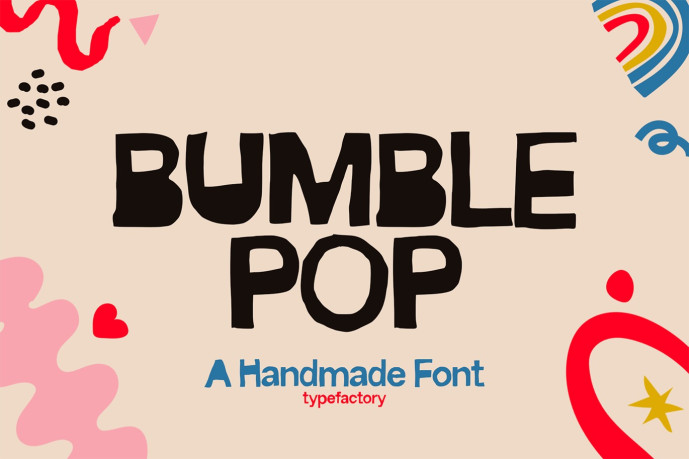
Bumble Pop – Children Book Font
Designer: TypeFactory
Bumble Pop is a playful handmade display font featuring organic curves, bold strokes, and an energetic handcrafted style. Designed to bring warmth and personality to creative projects, its friendly letterforms create a fun and approachable look that works beautifully for children’s books, branding, packaging, posters, social media graphics, logos, invitations, and educational materials. Complete with uppercase, lowercase, numerals, punctuation, multilingual support, and stylistic alternates, Bumble Pop adds a cheerful handcrafted touch that makes every design feel lively and memorable.
Features: